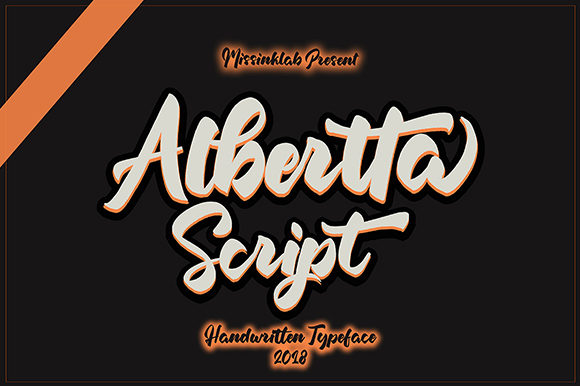
Prepare to be mesmerized by the captivating allure of Albertta Font, a script font that will ignite your imagination and leave you breathless. This extraordinary creation from the talented Pineungtype & Missinklab is a masterpiece that combines boldness, elegance, and timeless beauty.
Step into a world where your designs come alive with unrivaled charisma. Albertta Font is not just a font; it's an artistic expression that commands attention and sparks conversations. Its bold strokes exude an undeniable presence, while its handwritten flair adds a touch of genuine authenticity to every project you undertake.
With Albertta Font, you unlock limitless possibilities to transform your designs into extraordinary works of art. Whether you're crafting enchanting invitations, captivating social media posts, or sleek logos that leave a lasting impression, this font will elevate your creations to new heights.
With its dynamic personality and versatility, Albertta Font adapts effortlessly to a myriad of design styles. Let your imagination soar as you explore its potential in crafting stunning posters that demand attention, eye-catching branding that exudes professionalism, and personalized greeting cards that convey heartfelt messages.
Unleash your creativity and let Albertta Font guide you on an artistic journey like no other. It's the perfect companion for designers, artists, and visionaries who crave a font that commands attention and leaves a lasting impact.
Albertta Font is more than just a collection of letters; it's an experience that will awaken your senses and captivate your audience. Embrace its boldness, savor its elegance, and let your designs shine brighter than ever before.